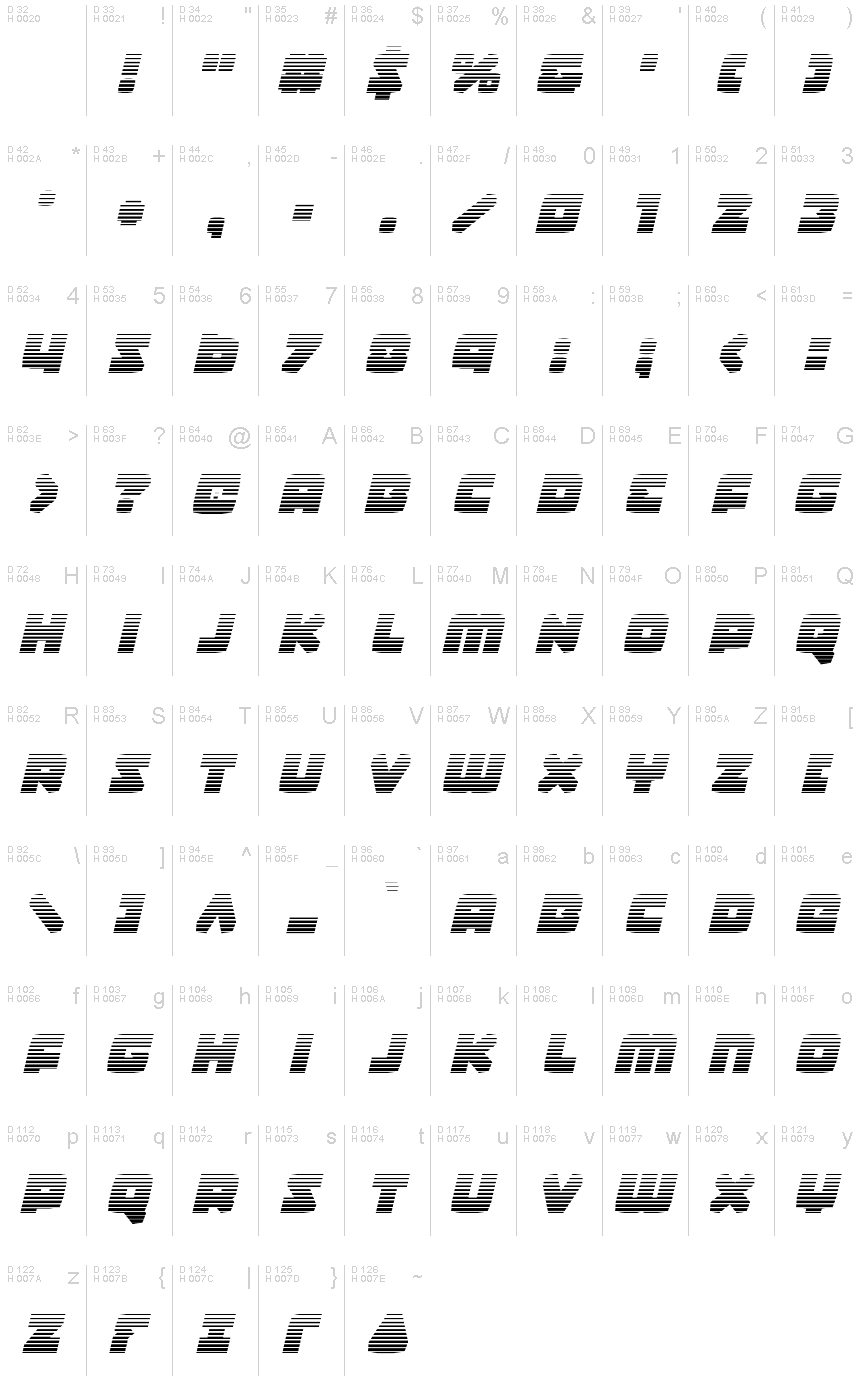
Gamer Spot Gradient Italic
Gamer Spot Gradient Italic is a stunning ultra-bold and extra-expanded display font that will make your designs pop! The techno style of this font is perfect for gaming projects, as well as futuristic or technology-based designs. With its gradient effect, it's ideal for creating eye-catching headlines, logos and branding materials. Use it on posters, merchandise, social media graphics or even game interfaces to give your work a bold and edgy look. Designed by Iconian Fonts, Gamer Spot is an unforgettable typeface that will leave a lasting impression on your audience. Get creative and explore the endless possibilities of this unique font!